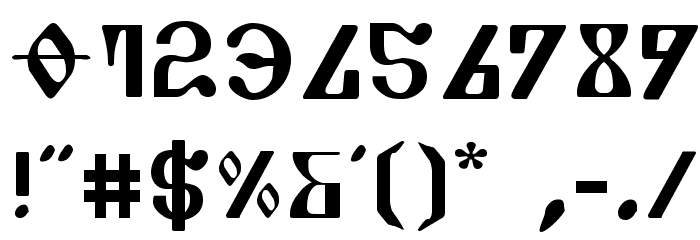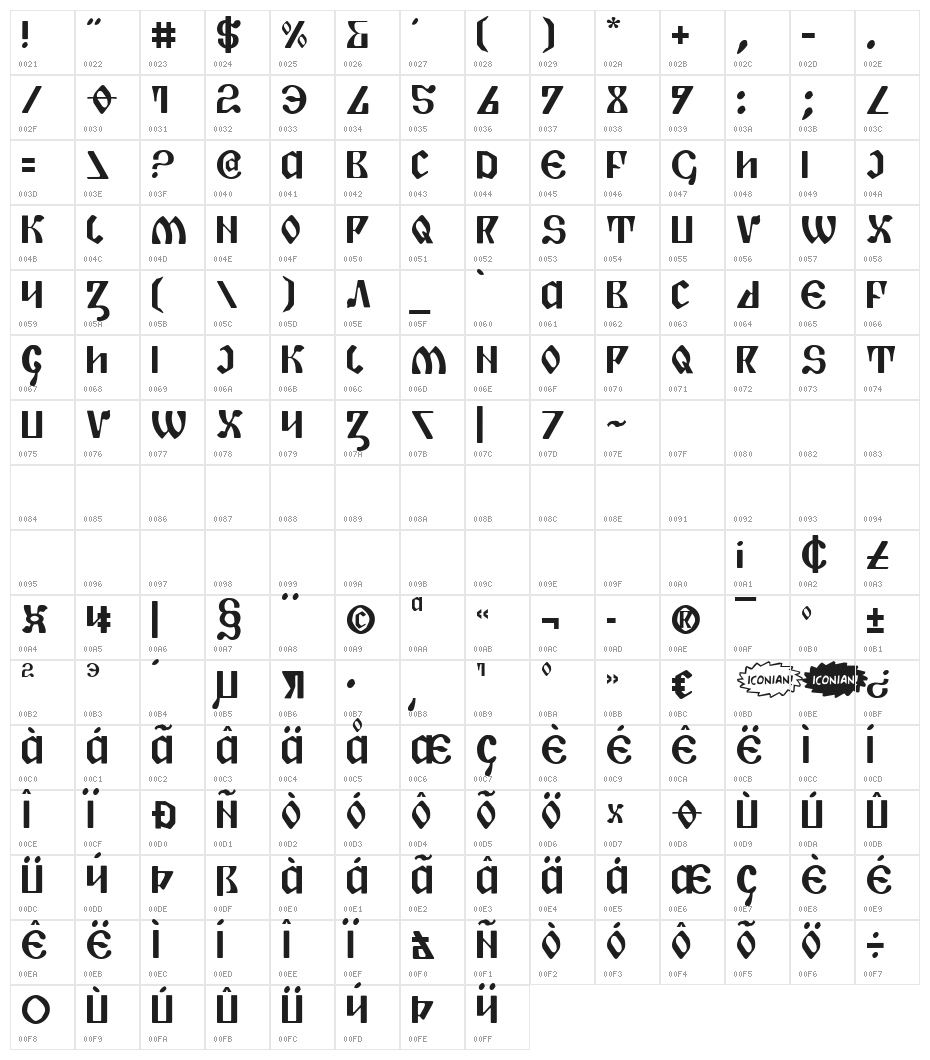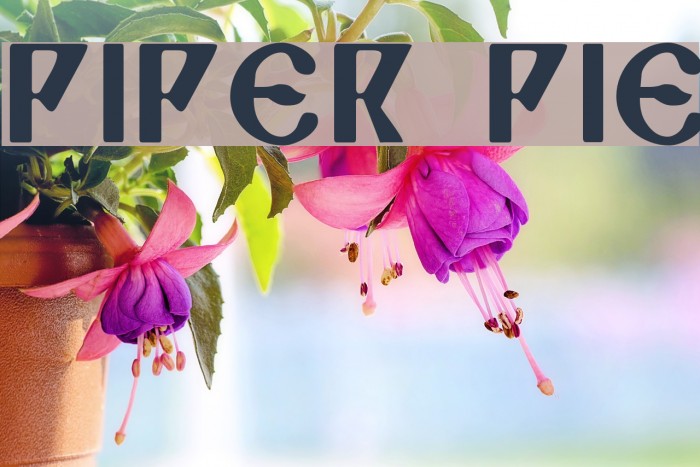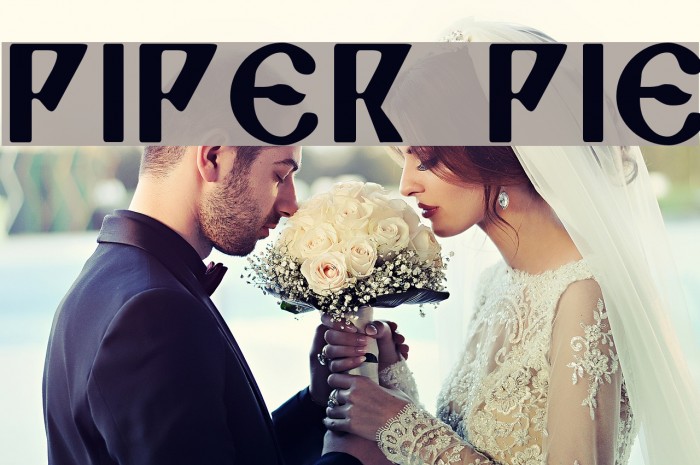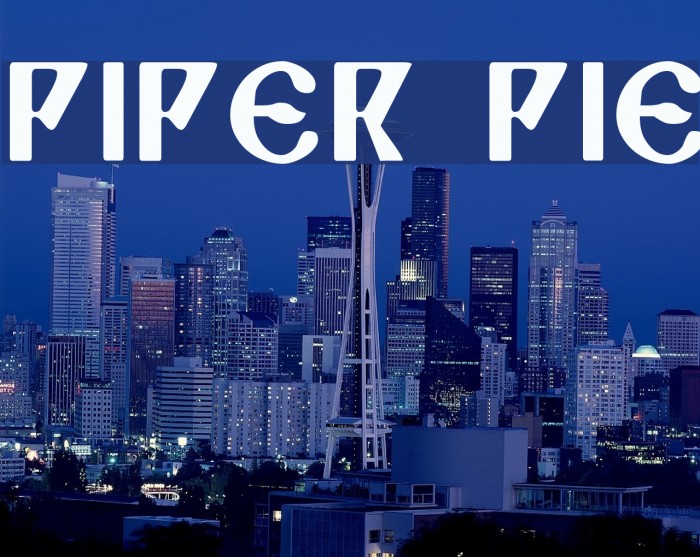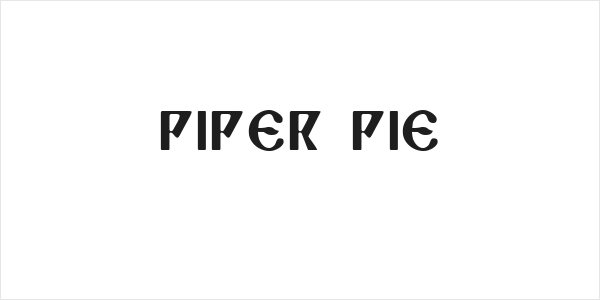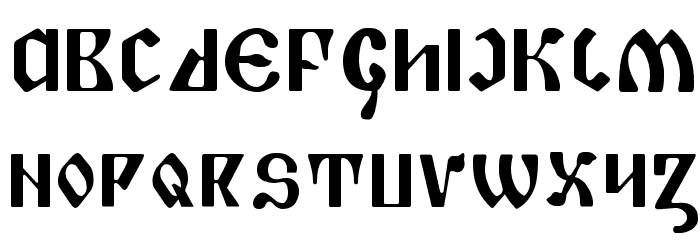
Piper Pie Font
Piper Pie Description
This font features a bold and striking design with a unique blend of geometric and angular elements. The uppercase letters exhibit a strong presence with sharp edges and distinctive cuts, creating a sense of modernity and innovation. The lowercase letters maintain a consistent style, offering a cohesive look throughout the typeface. Numbers and special characters are crafted with the same attention to detail, ensuring versatility across various applications. The overall aesthetic is both futuristic and retro, making it suitable for projects that require a standout visual impact.